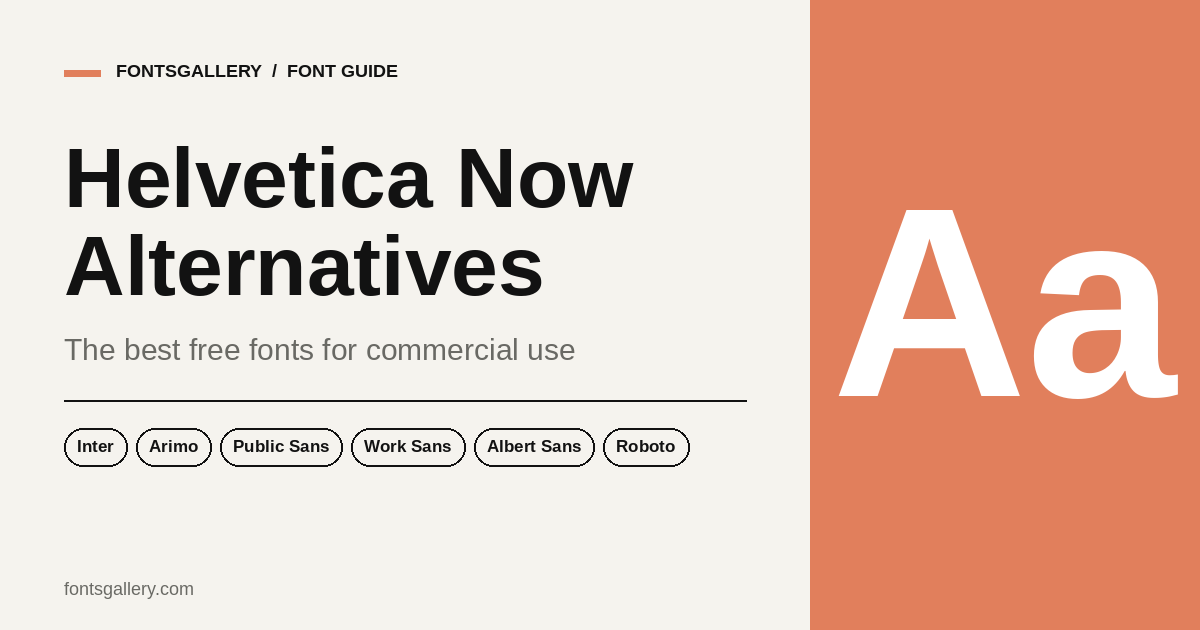
Why People Look for a Helvetica Now Alternative
Helvetica Now is Monotype's modern redraw of the classic Swiss typeface. It comes in three optical sizes (Micro, Text and Display) and a large range of weights, so it works from tiny captions to huge headlines. It's versatile, but it is a paid font. Licensing depends on the use case: desktop, web, app and server licenses are priced separately, and costs add up fast for a freelancer, a startup or a small brand with several projects.
That's why so many designers search for a free Helvetica Now alternative that is safe for commercial work. The good news is that there are several excellent options.
What Makes a Good Helvetica Alternative?
- Neutral, clean letterforms. Helvetica's appeal is that it doesn't shout. A good alternative stays quiet and lets the message lead.
- Tight, even spacing and strong horizontal stress. This gives Helvetica its solid, confident rhythm.
- Multiple weights. Real design work needs Light, Regular, Medium, Bold and often Black.
- A commercial-friendly license. Look for SIL Open Font License (OFL) or Apache 2.0. Both allow commercial use, including logos, websites, apps and printed products.
- Good language support. If you serve international audiences, check for extended Latin, Cyrillic or Greek.
The Best Free Alternatives to Helvetica Now
1. Inter: The Best All-Round Replacement
Inter was designed for screens, and it shows. It has a large x-height, excellent legibility at small sizes and a huge weight range. It's the closest thing to a modern default for UI, dashboards, websites and apps. It's a little more open and geometric than Helvetica, but for most projects nobody will notice the difference. License: SIL OFL.
2. Arimo: The Safe, Familiar Choice
Arimo is metrically compatible with Arial, which was itself designed to match Helvetica's spacing. That makes it a dependable pick when you want that familiar grotesque look, plus reliable layout behavior across documents and web pages. It's a little plainer than Helvetica Now, but very stable. License: Apache 2.0.
3. Nimbus Sans / TeX Gyre Heros: The Closest Clone
If you want the classic Helvetica look rather than a modern reinterpretation, Nimbus Sans and TeX Gyre Heros are the nearest free options. They are widely used in print and technical publishing. They lack the polish and optical sizing of Helvetica Now, so they work best for text and print layouts. License: varies by build, so check the license file in the version you download.
4. Public Sans: Clean and Professional
Public Sans is a neutral, sturdy sans that works very well for business sites, reports and documentation. It has a slightly softer, more institutional feel and covers a wide weight range. License: SIL OFL.
5. Work Sans: Friendly but Neutral
Work Sans keeps Helvetica's straightforward structure but adds a little warmth. It's a good fit for branding, marketing sites and editorial layouts where you want clean without cold. License: SIL OFL.
6. Albert Sans: Sharp and Contemporary
Albert Sans has a crisp, modern character with tidy geometry, and it works well for headlines and brand materials. It's a good choice when you want something Helvetica-adjacent but a little more current. License: SIL OFL.
7. Roboto: Universal and Dependable
Roboto blends grotesque and geometric ideas, and it's a proven workhorse for apps and websites. It's less Swiss than Helvetica Now, but excellent for practical, high-volume use. License: Apache 2.0.
Which One Should You Choose?
- Building a website or app? Start with Inter.
- Need the classic Helvetica look for print? Try Nimbus Sans or TeX Gyre Heros.
- Working on corporate or documentation design? Public Sans or Arimo.
- Designing a brand with a bit of personality? Work Sans or Albert Sans.
Tips for Using a Helvetica Alternative in Commercial Projects
- Pair carefully. A neutral sans works best with one contrasting partner, such as a serif for headings or a script for accents.
- Use weight and size for hierarchy. Grotesques rely on contrast between Light, Regular and Bold rather than decoration.
- Adjust letter-spacing. Slightly tighter tracking on large headlines and slightly looser on small text recreates the polish of Helvetica Now's optical sizes.
- Always confirm the license. Download from the official source, read the license file and keep a copy with your project records.
Frequently Asked Questions
Is Helvetica Now free for commercial use?
No. It is a paid commercial typeface, and licensing depends on how you use it (desktop, web, app or server).
What is the closest free font to Helvetica Now?
For a modern feel, Inter is the closest all-round match. For classic Helvetica shapes, Nimbus Sans and TeX Gyre Heros are closer.
Can I use these fonts in a logo?
Fonts under OFL or Apache 2.0 generally allow logo use, but always read the specific license for the version you download.
Are Helvetica and Arial the same?
No. Arial was designed to be metrically compatible with Helvetica but has different details, such as the terminals on letters like "R" and "G."
Final Thoughts
You don't need to pay for a premium license to get a clean, professional Helvetica-style look. Inter, Public Sans, Work Sans and the other fonts above are strong, commercially usable alternatives that hold up across websites, packaging, presentations and print. Test two or three in your real layout, check the license, and pick the one that fits your brand.